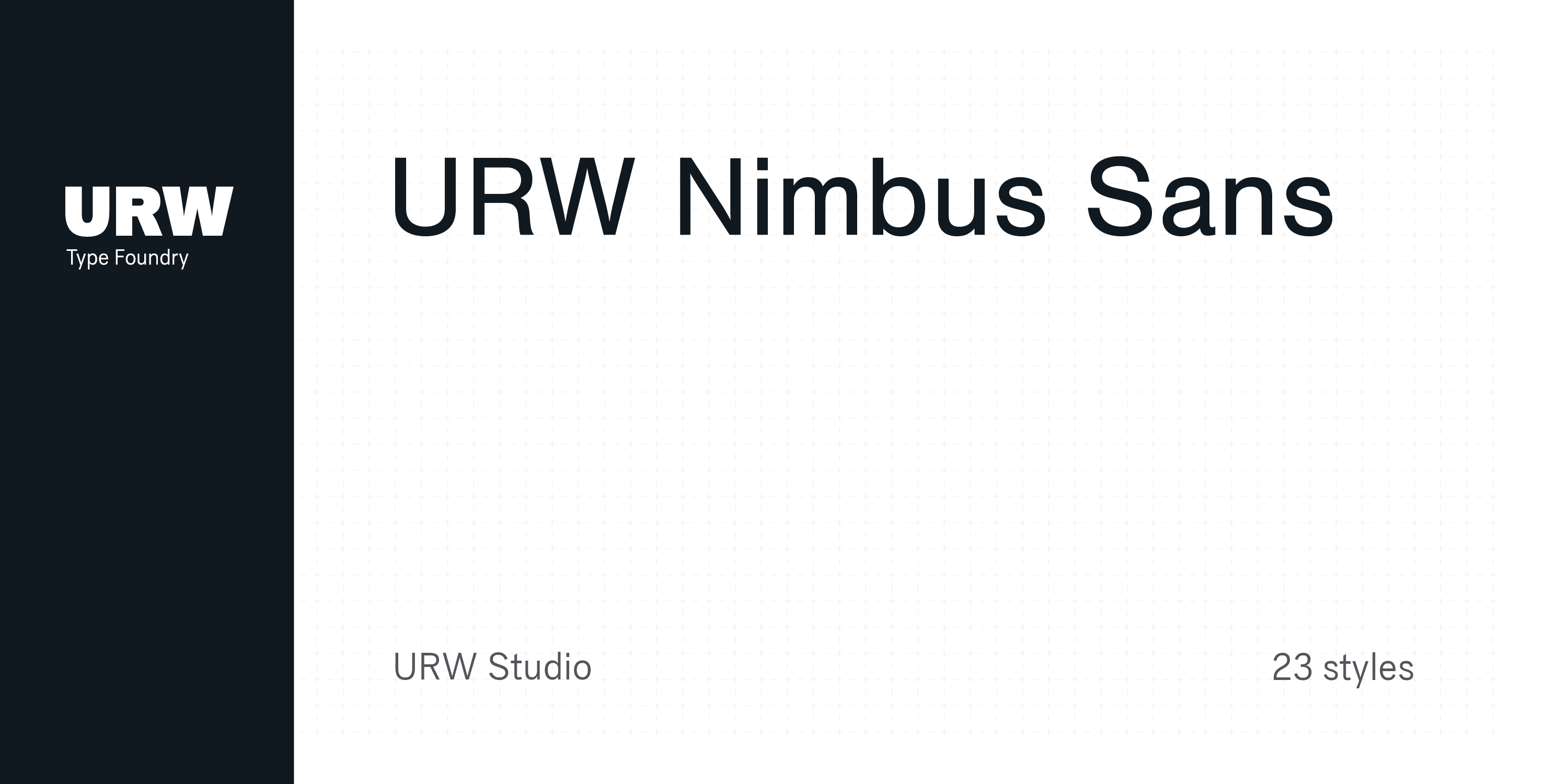
Nimbus Sans Font is perfect for cloud computing company branding, aviation industry materials, meteorological service documentation, weather forecasting applications, atmospheric research publications, airline corporate identities, sky-themed advertising campaigns, and elevated design projects that require clear typography with atmospheric clarity character and cloud-like lightness sophistication.
This Nimbus Sans Font is exciting because it captures the ethereal quality and boundless freedom of clouds with clean, unencumbered letterforms that seem to float with atmospheric grace, featuring light character construction that conveys openness and clarity while maintaining exceptional readability for digital applications and modern communications.
The Nimbus Sans Font family includes airy weights with atmospheric styling, complete character sets with clear uppercase and lowercase letters, floating numerals, light punctuation, and sky symbols that provide comprehensive typography solutions for aviation and technology design projects requiring authentic atmospheric aesthetics and elevated appeal.
Perfect for creating clear atmospheric communications and elevated brand identities, Nimbus Sans Font Free Download delivers the light typography that transforms text into soaring expressions of atmospheric clarity and cloud-like elegance. This distinctive typeface embodies the essence of nimbus clouds and atmospheric freedom, making it essential for projects celebrating aviation excellence, cloud technology, atmospheric science, and any design requiring elevated character with authentic atmospheric sophistication and timeless sky appeal that rises above the ordinary with cloud-like grace and clarity.